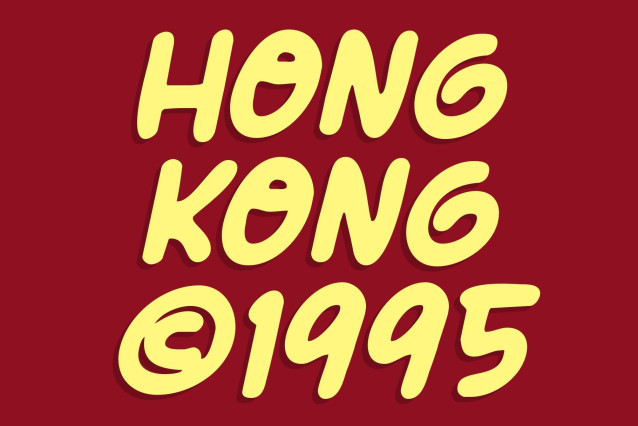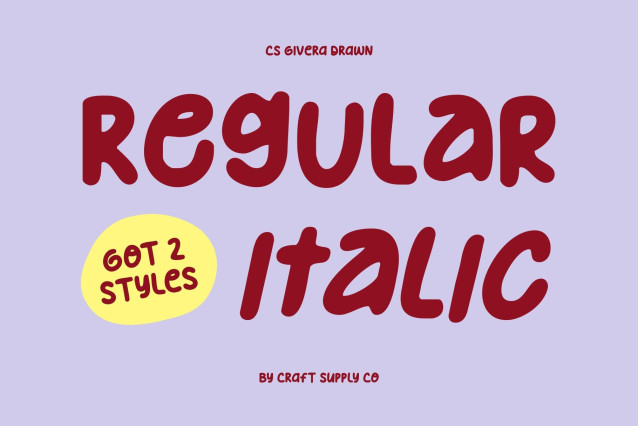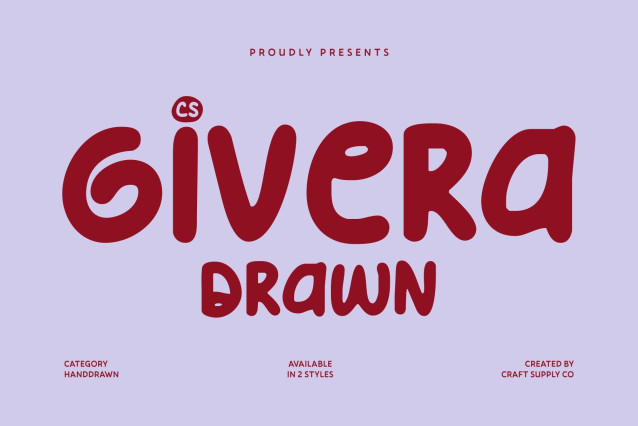
CS Givera Drawn Font
CS Givera Drawn Font – This is a fun display font designed to bring playful energy and friendly expression to every project. Its bold strokes and lively shapes are enhanced by a hand-drawn effect, giving each letter a unique character. This artistic touch adds warmth and personality, creating a youthful visual tone that instantly captures attention.
Friendly Shapes with Artistic Texture
The rounded, welcoming letterforms are enriched with subtle drawn textures that make the font feel organic and handcrafted. Slight irregularities in the strokes create a soft, human feel while maintaining clarity and balance. This combination results in typography that feels joyful, expressive, and visually engaging.
Energetic Rhythm with Unique Character Shapes
This font stands out through its energetic rhythm and playful structure. The drawn effect introduces creative imperfections that add movement and artistic charm, transforming bold shapes into dynamic, eye-catching lettering. Each character feels alive, full of excitement and positive energy.
Perfect for Youthful and Creative Designs
This font shines in youth branding, greeting cards, packaging, posters, and playful social media visuals. Its bold presence, friendly style, and hand-drawn texture make it ideal for fun logos, cheerful messages, and casual projects that need a unique, artistic, and approachable font.